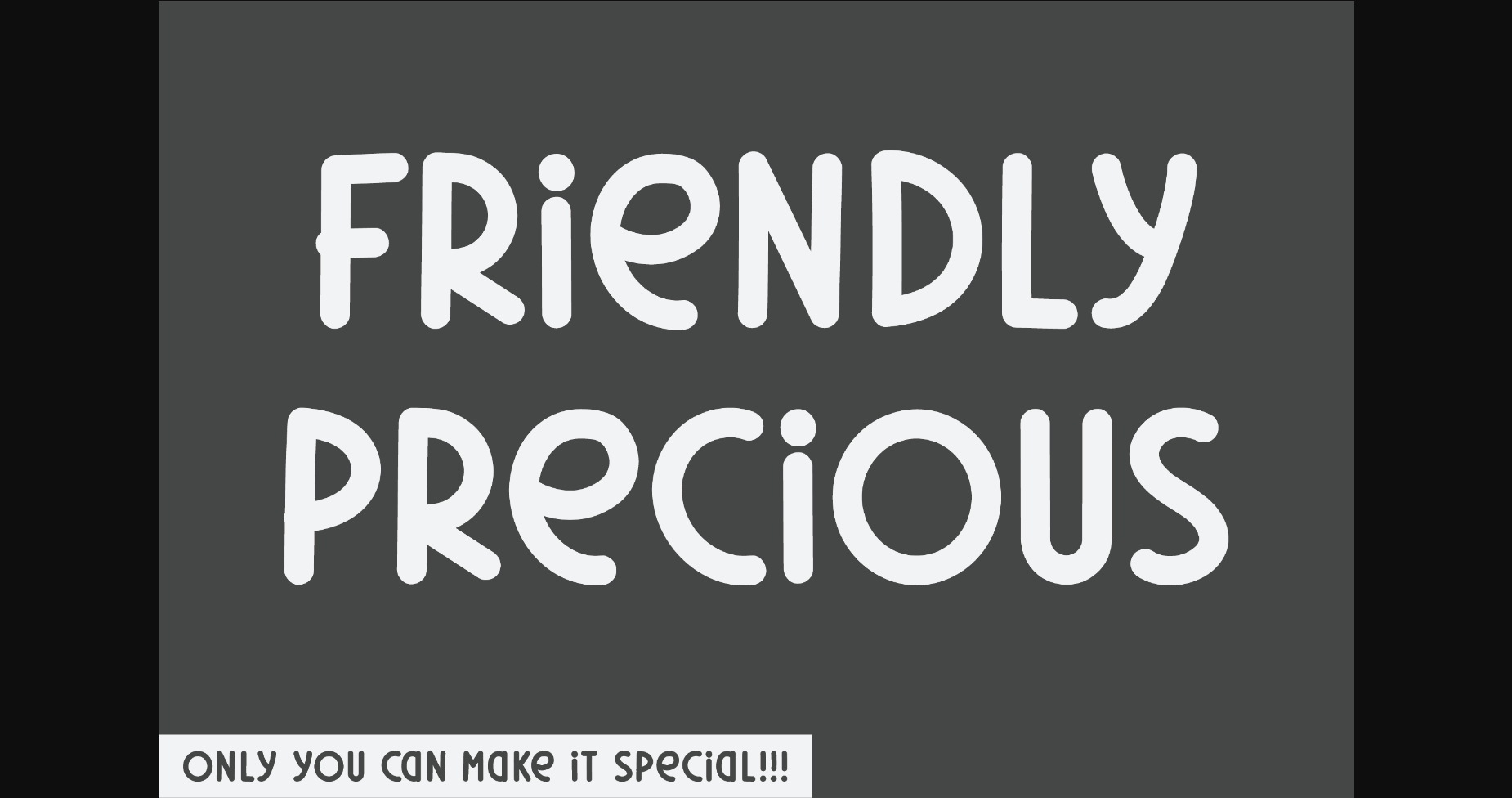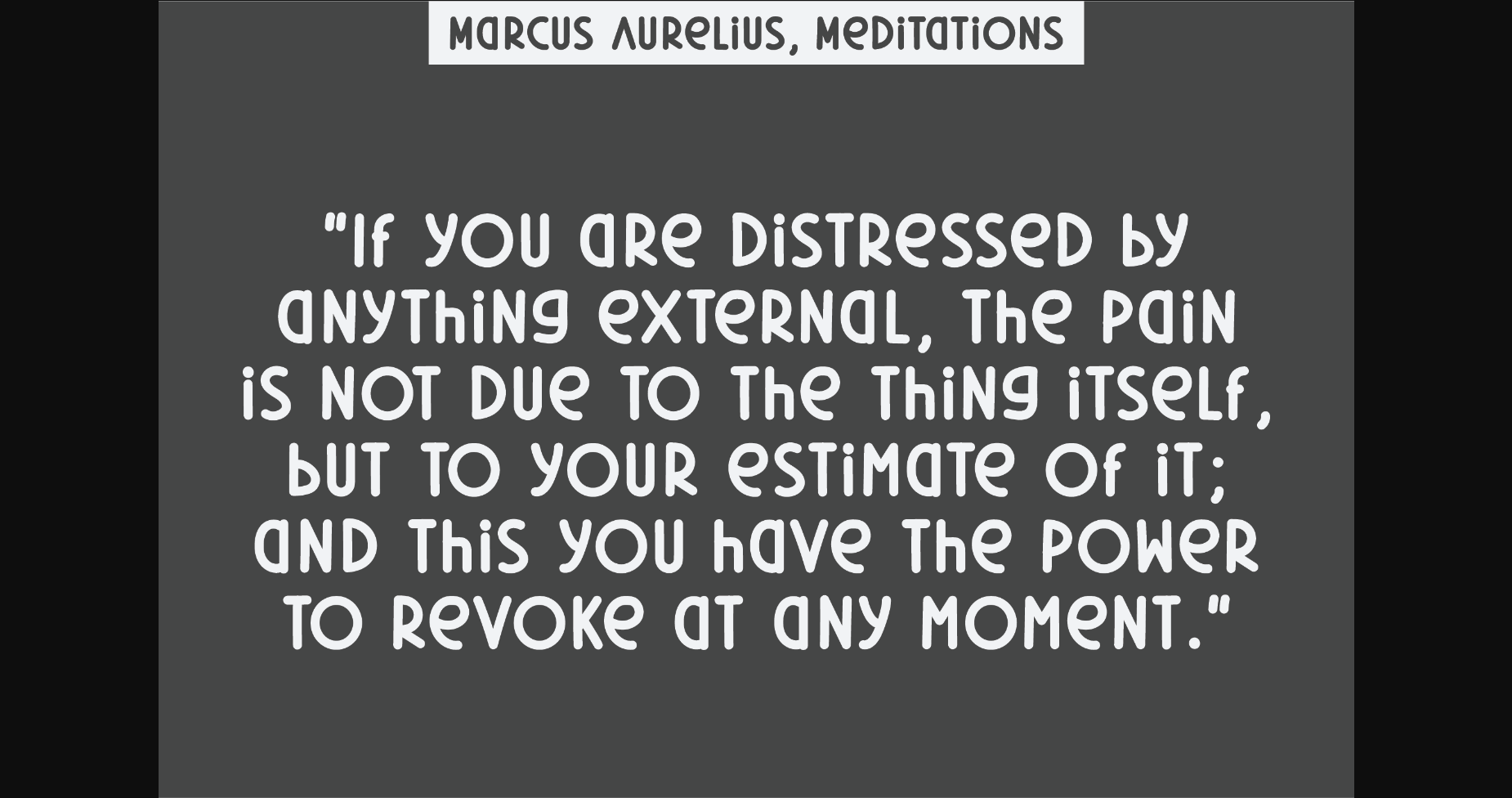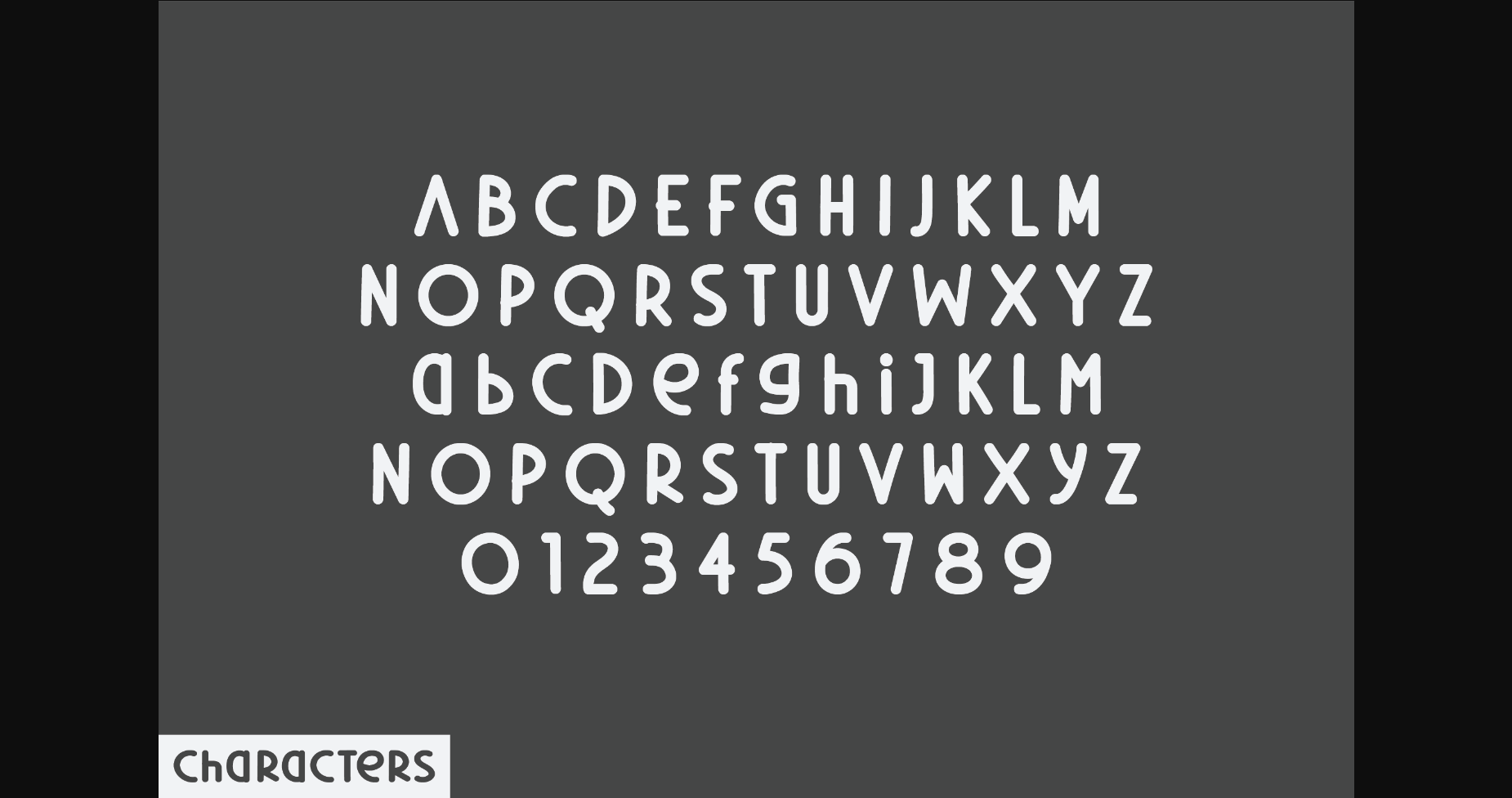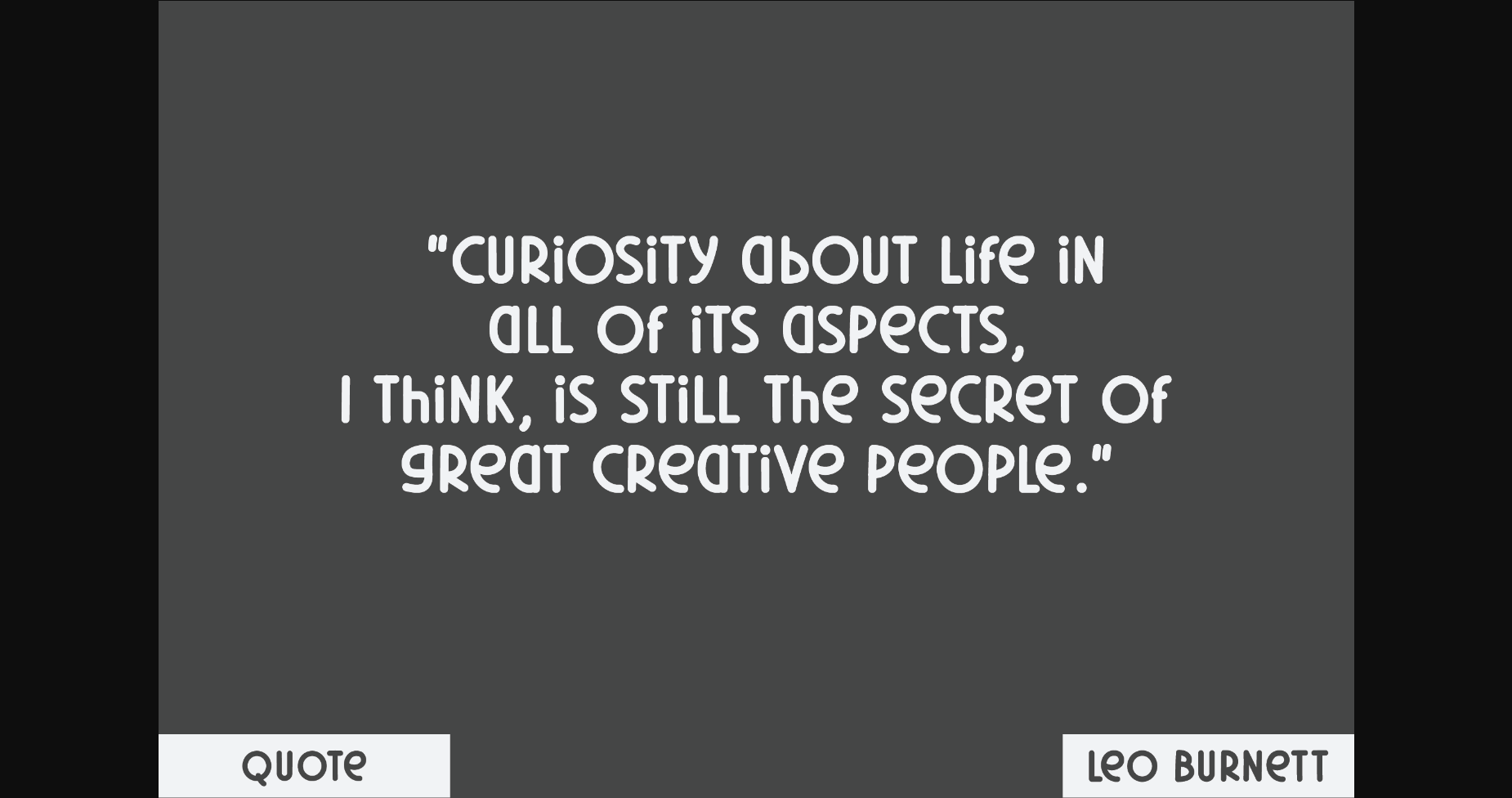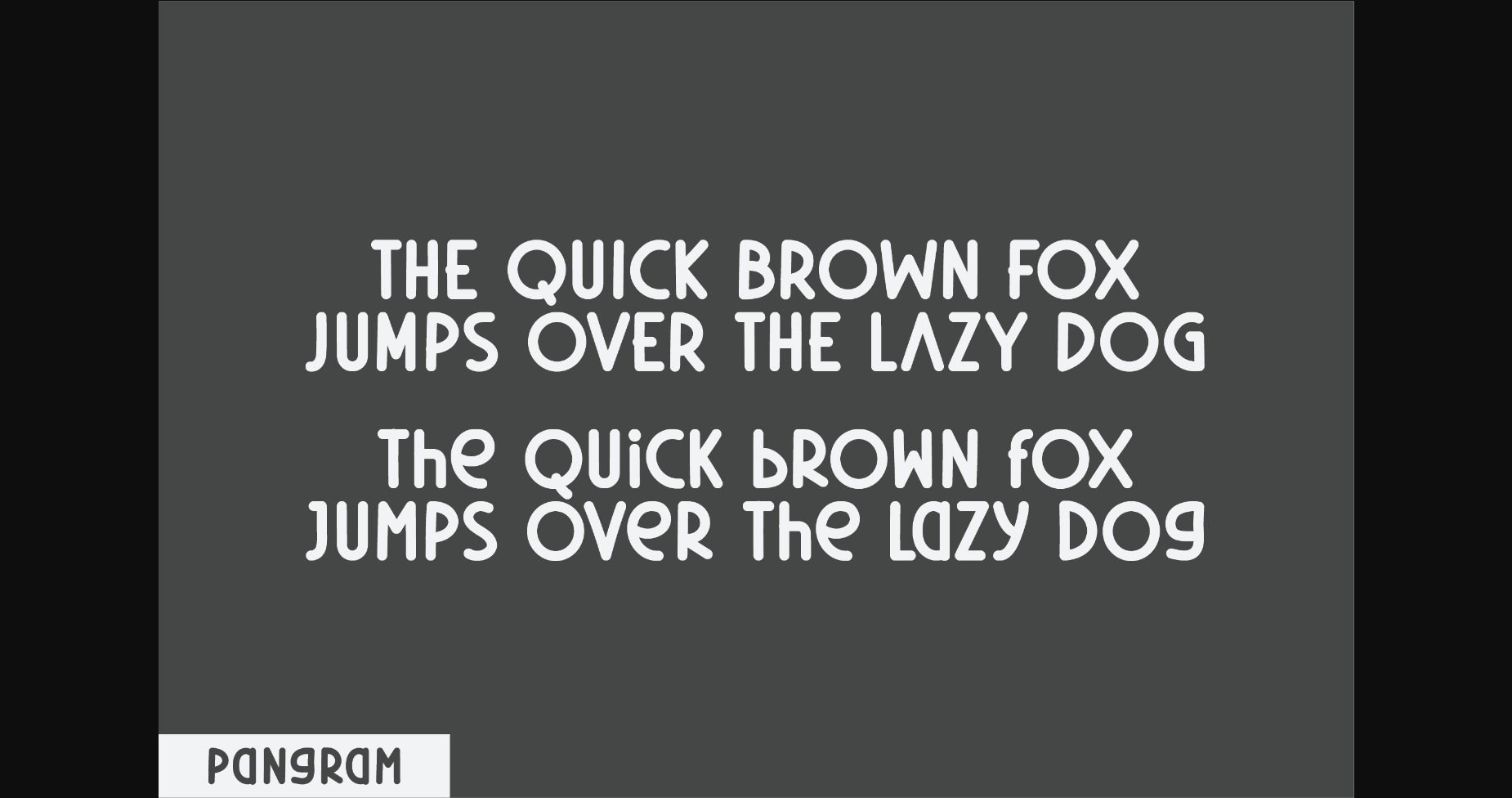
Friendly Precious Font
About Friendly Precious Font
Friendly Precious is an elegant and bold serif font. Fall in love with its incredibly versatile style and use it to create gorgeous wedding invitations, beautiful stationary art, eye-catching social media posts, and much more!